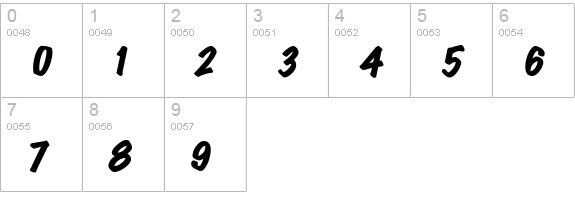
MarkingPenHeavy Italic is a distinctive, italic variant in the MarkingPenHeavy typeface family \xE2\x80\x94 well suited to design and typography projects.
MarkingPenHeavy Italic is a bold and expressive font that exudes confidence and adds a touch of uniqueness to your design projects. With its heavy strokes and slanted italic style, this font captures attention and makes a bold statement. Ideal for headlines, logos, and titles, MarkingPenHeavy Italic stands out in both digital and print media. Its strong and distinctive letterforms create a sense of energy and excitement, making it perfect for projects that require a dynamic and eye-catching typography. This font's italic variation adds a touch of elegance and sophistication to your designs. It effortlessly combines the boldness of the heavy weight with the graceful slant of the italics, creating a harmonious balance that is visually pleasing. MarkingPenHeavy Italic is freely available to download at FontsMarket.com. Whether you're a professional designer or a hobbyist, you can easily access this font and incorporate it into your creative endeavors. Its availability at FontsMarket.com ensures that you can effortlessly access and utilize this font for personal and commercial projects alike. So why wait? Give your designs a bold and energetic twist with MarkingPenHeavy Italic. Download it for free today at FontsMarket.com and let your creativity soar to new heights.